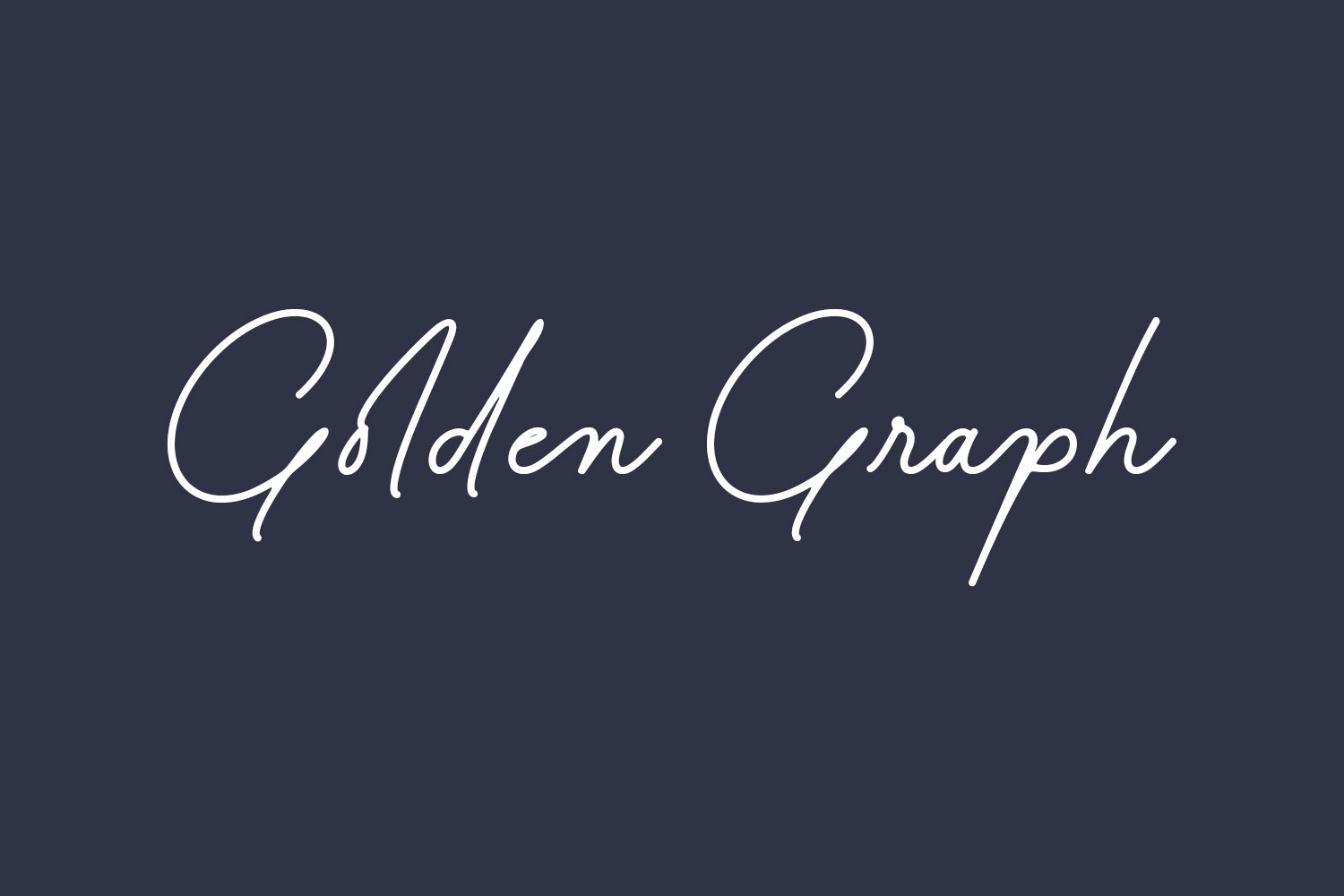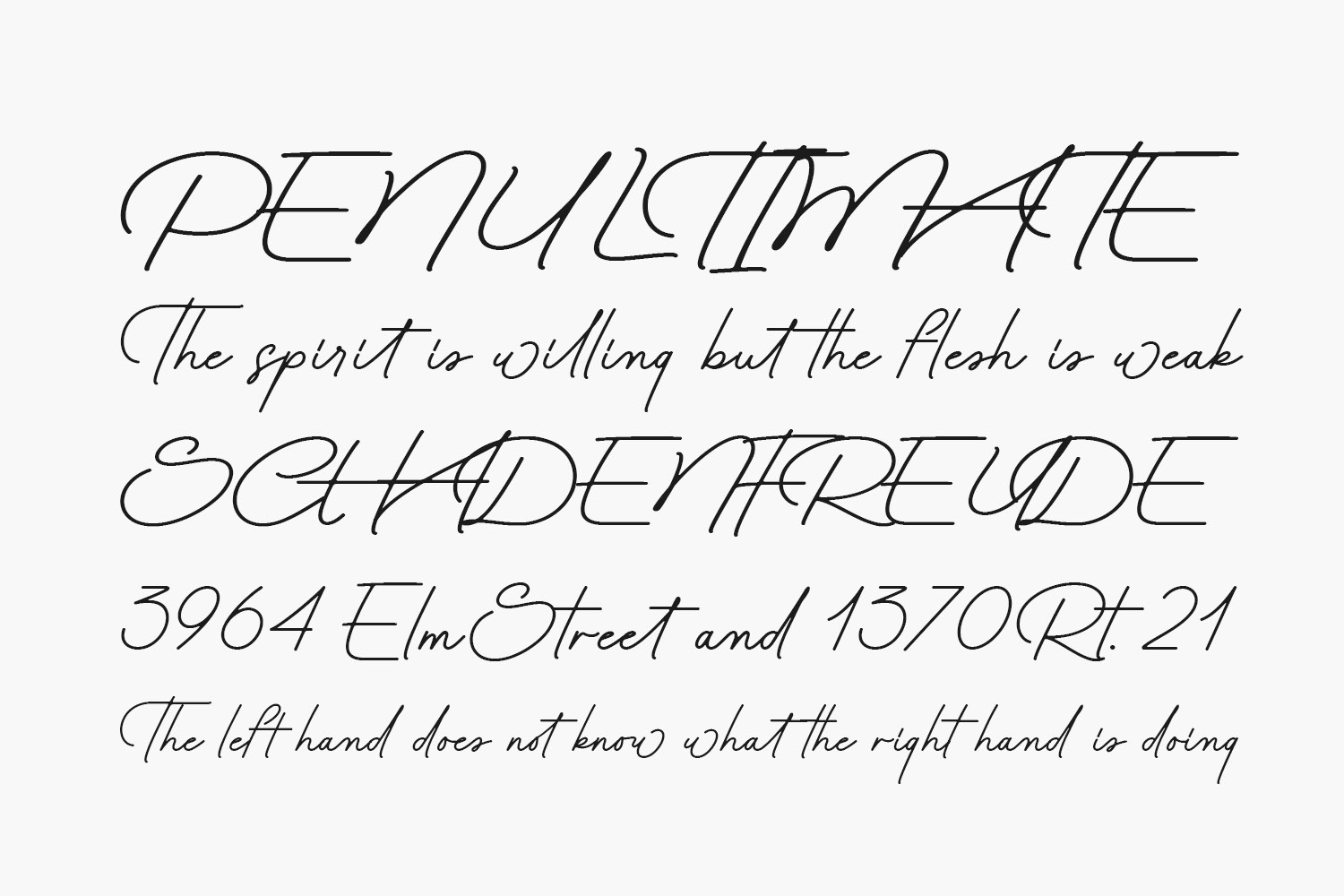
Golden Graph Free Font is a handcrafted font characterized by its refined elegance, making it an ideal choice for your cherished projects. Embrace its unique and enduring style, allowing you to craft awe-inspiring designs. Golden Graph Free Font is free for personal use only. Please purchase the full version for commercial use.
Designed by Four Lines